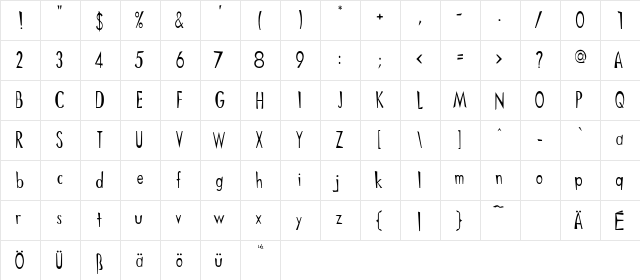
ChineseMenu Normal
Design Context for ChineseMenu Typeface
ChineseMenu offers clean, dependable letterforms without strong stylistic allegiance, making it a practical choice for designers who need flexibility.